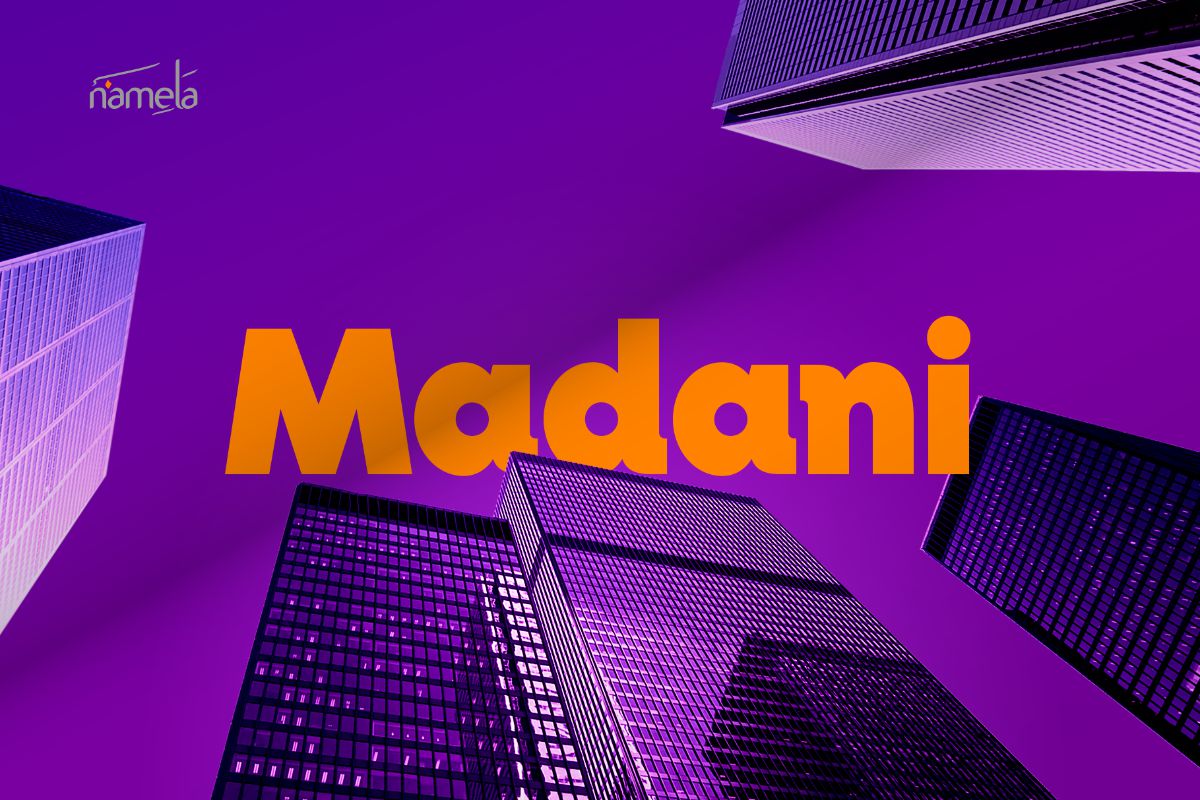
Madani ExtraBold
Madani Font - A Geometric Sans-Serif Typeface for UI/UX & ePub Clean, balanced, and quietly confident, Madani is a geometric sans-serif typeface built for the demands of modern design. Whether you're crafting a digital product interface, building a branding system, or laying out an ePub publication, Madani delivers the consistency and clarity that professional work requires. It’s a font that works without demanding attention, allowing content to lead while typography supports every step.